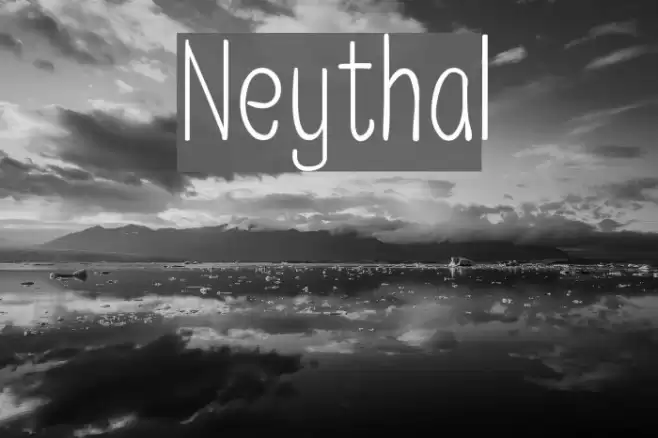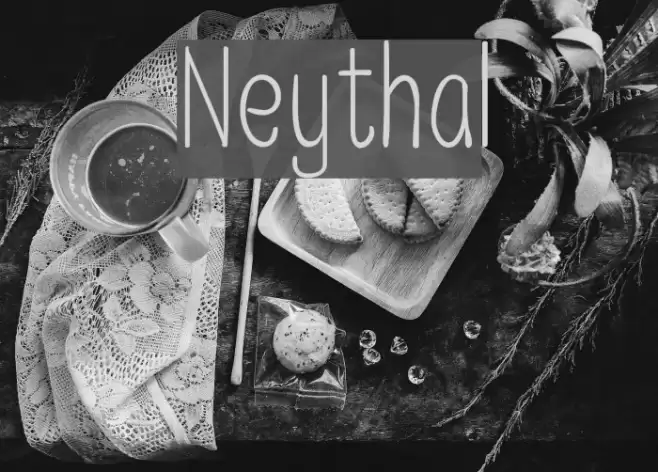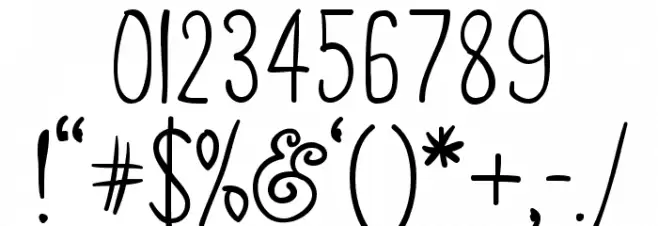
Neythal Font
Neythal Description
This font features a playful and whimsical design with tall, narrow characters that have a hand-drawn appearance. The strokes are consistent in width, giving it a uniform look, while the slight irregularities in the curves and lines add a touch of charm and personality. The uppercase letters are slightly taller than the lowercase, maintaining a cohesive style throughout. The numerals and special characters follow the same playful aesthetic, making the font suitable for creative and informal projects. Its unique style is both approachable and distinctive, making it stand out in various design contexts.
A playful, hand-drawn font with tall, narrow characters and a whimsical style from Uncategorized fonts.
- Proposed Projects: Ideal for children's books, greeting cards, playful branding, and creative posters.
- Overall Style: Whimsical